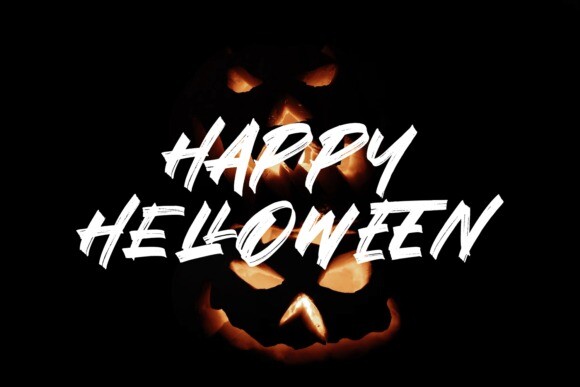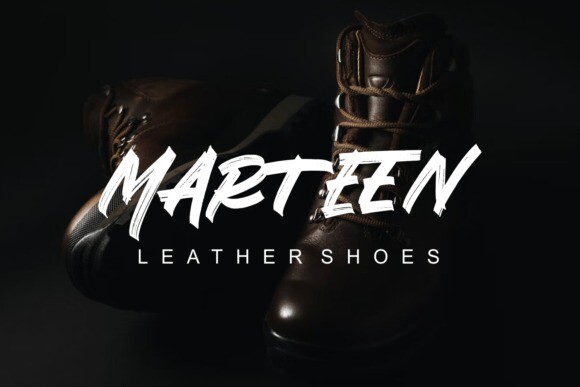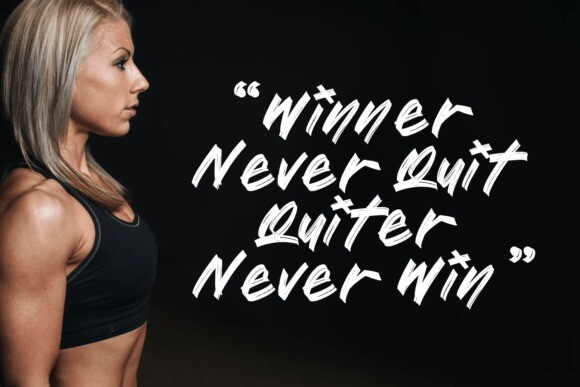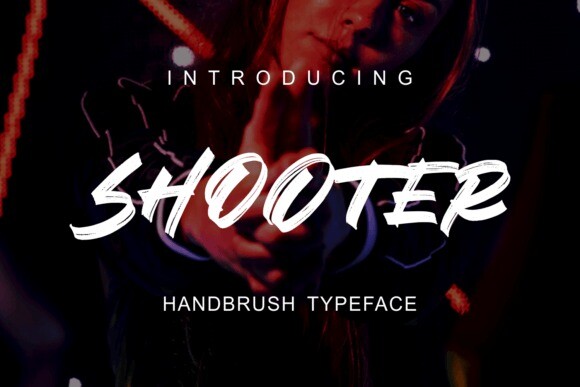
Shooter Font is a hand brushed font created with a brush and ink, bold and irregular baseline. Get inspired by its simple, natural style and add it to your favorite designs! Ideal for logos, handwritten quotes, product packaging, headers, posters, apparel, merchandise, social media & greeting cards.